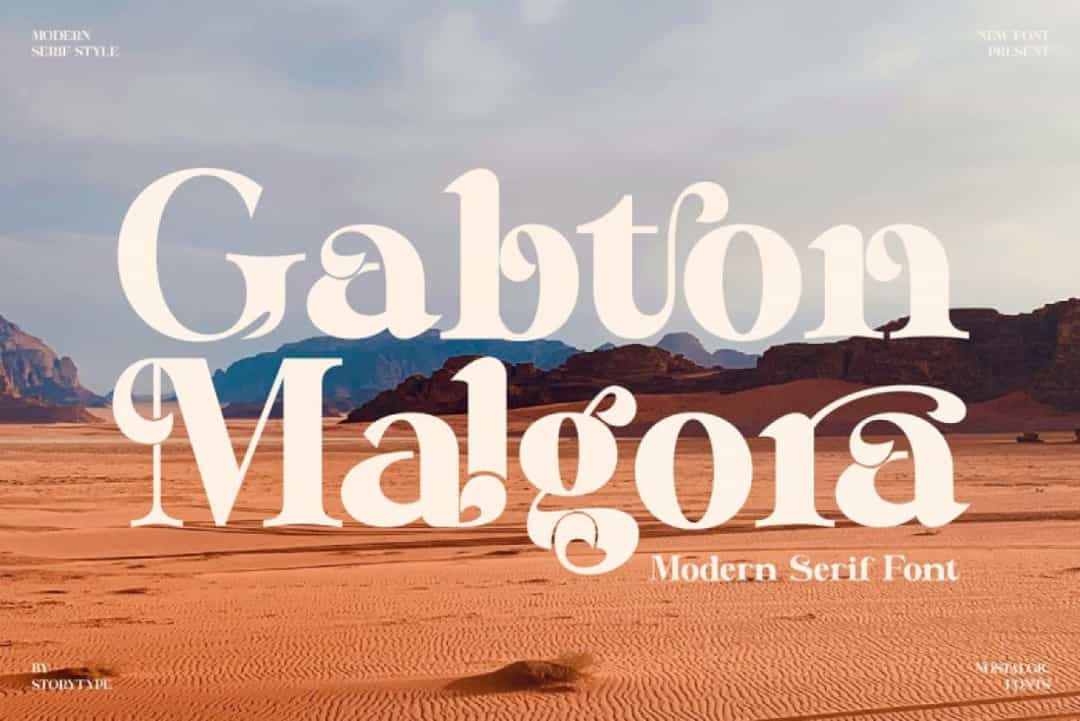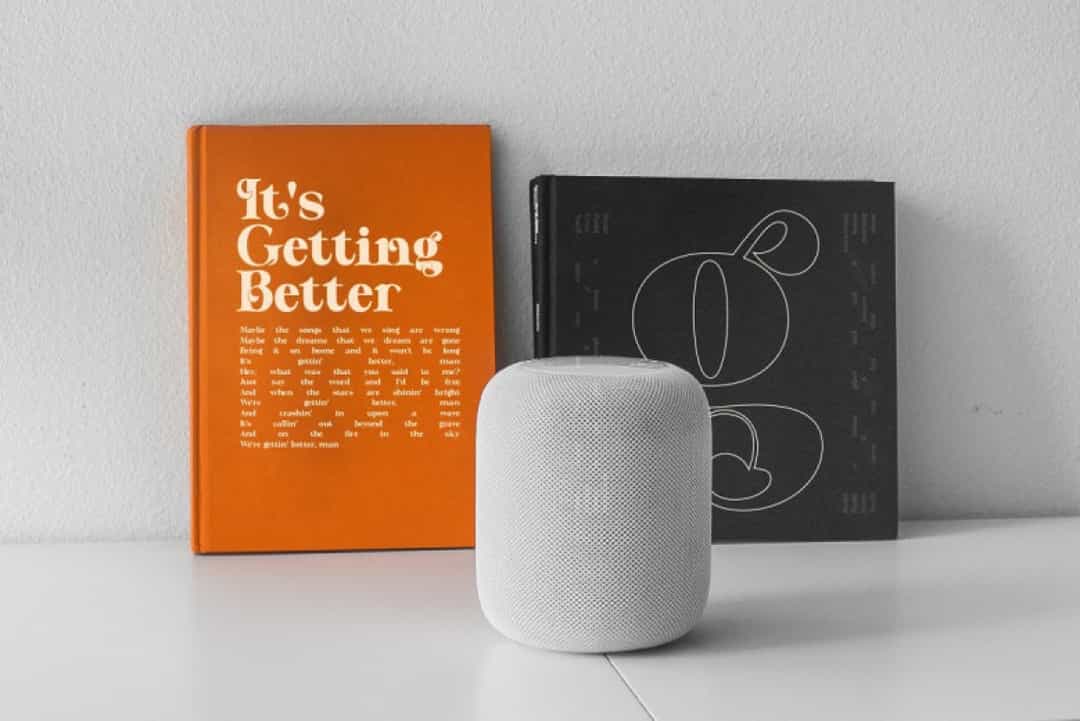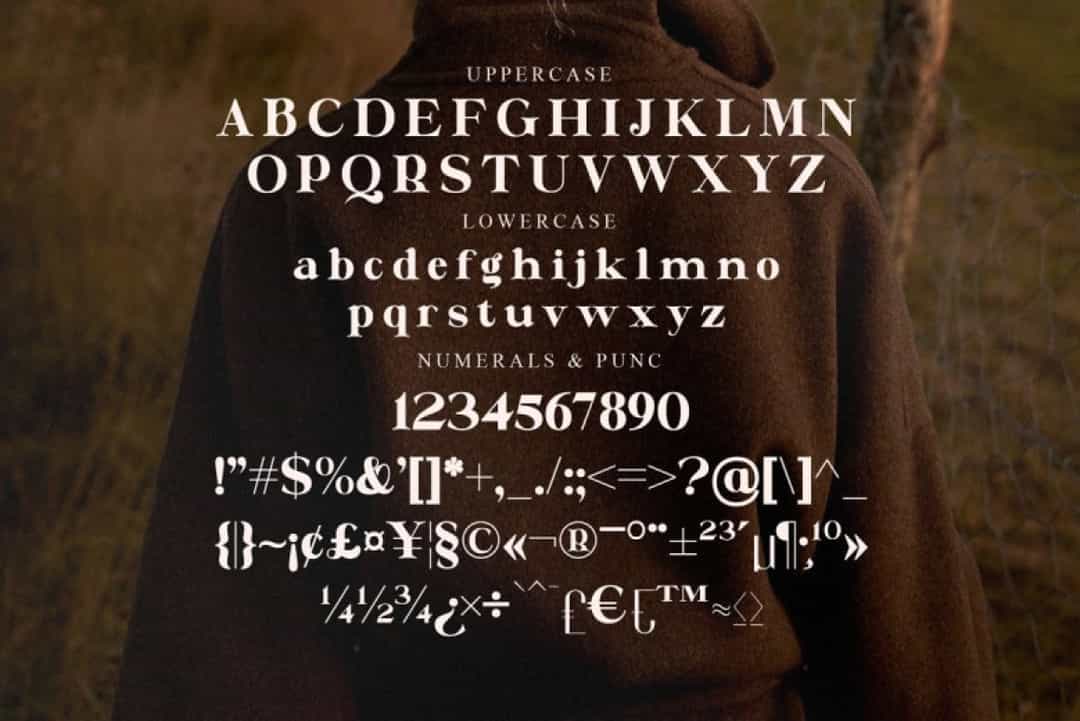
Discover Gabton Malgora Font, part of the Serif collection—a versatile and unique font perfect for adding a personal touch to your projects. Download it for free and enjoy crafting designs with style, from invitations to social media posts. This font is available exclusively for personal use, giving you the freedom to create without limits. Unlock your creativity with Gabton Malgora Font today!
Storytype’s Gabton Malgora Serif Typeface, with its distinctive style and contemporary appearance, makes for a modern serif and classic typeface ideal for luxurious logo designs, movie or book title creation, fashion brand clothing label designs, magazine letters, quotes or any other purpose.